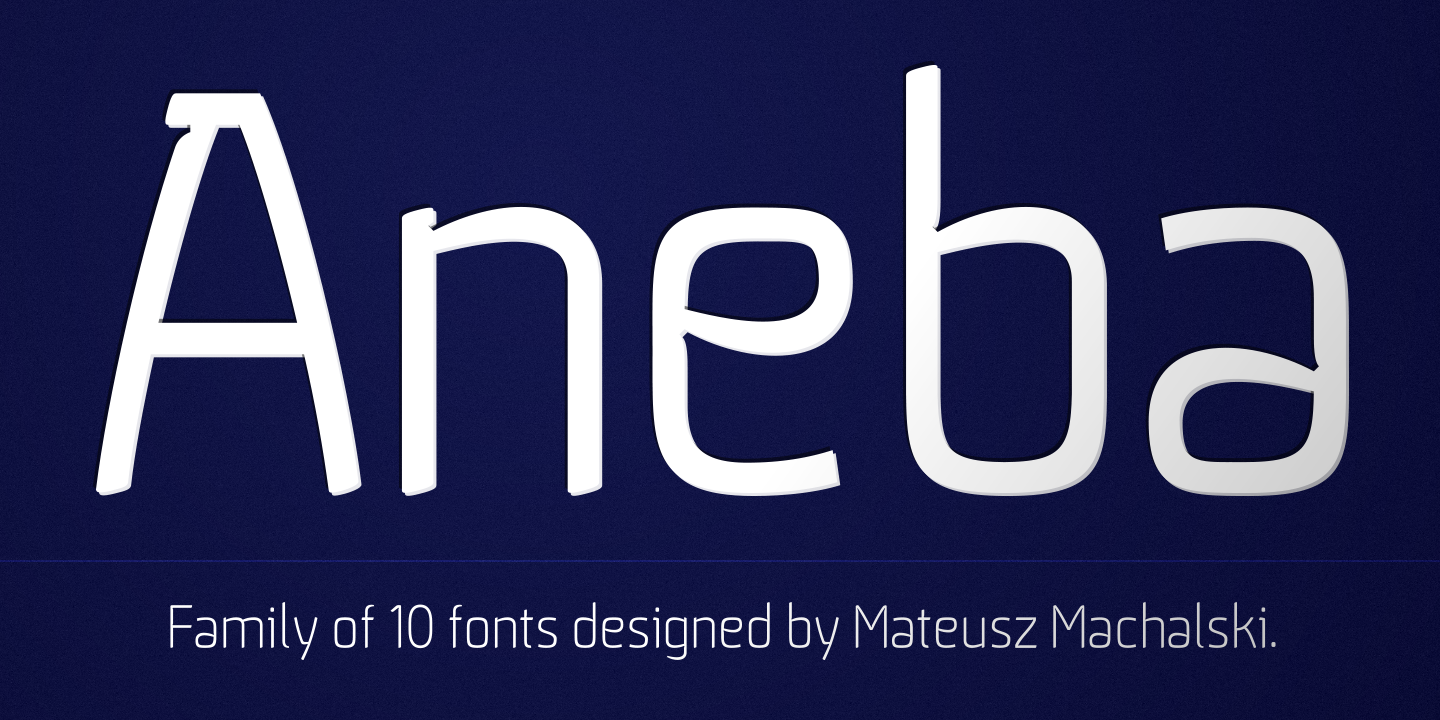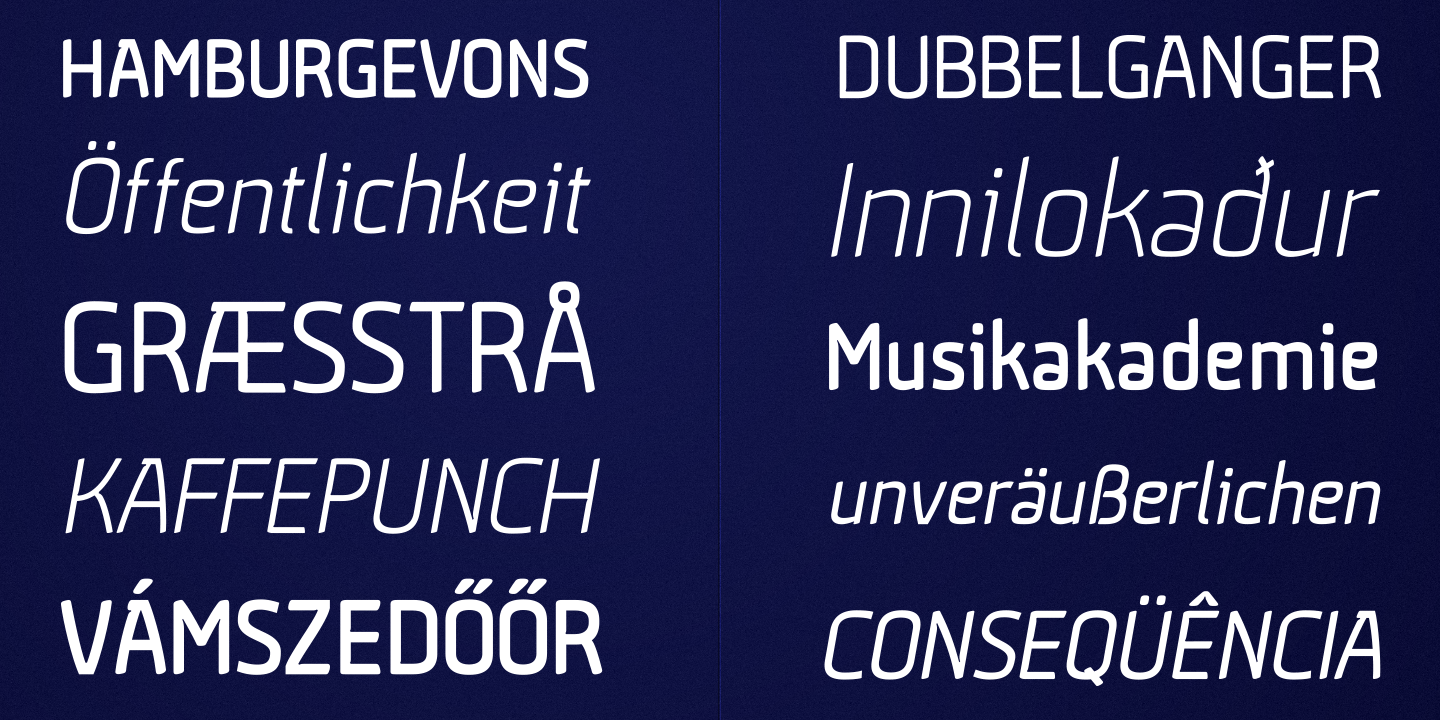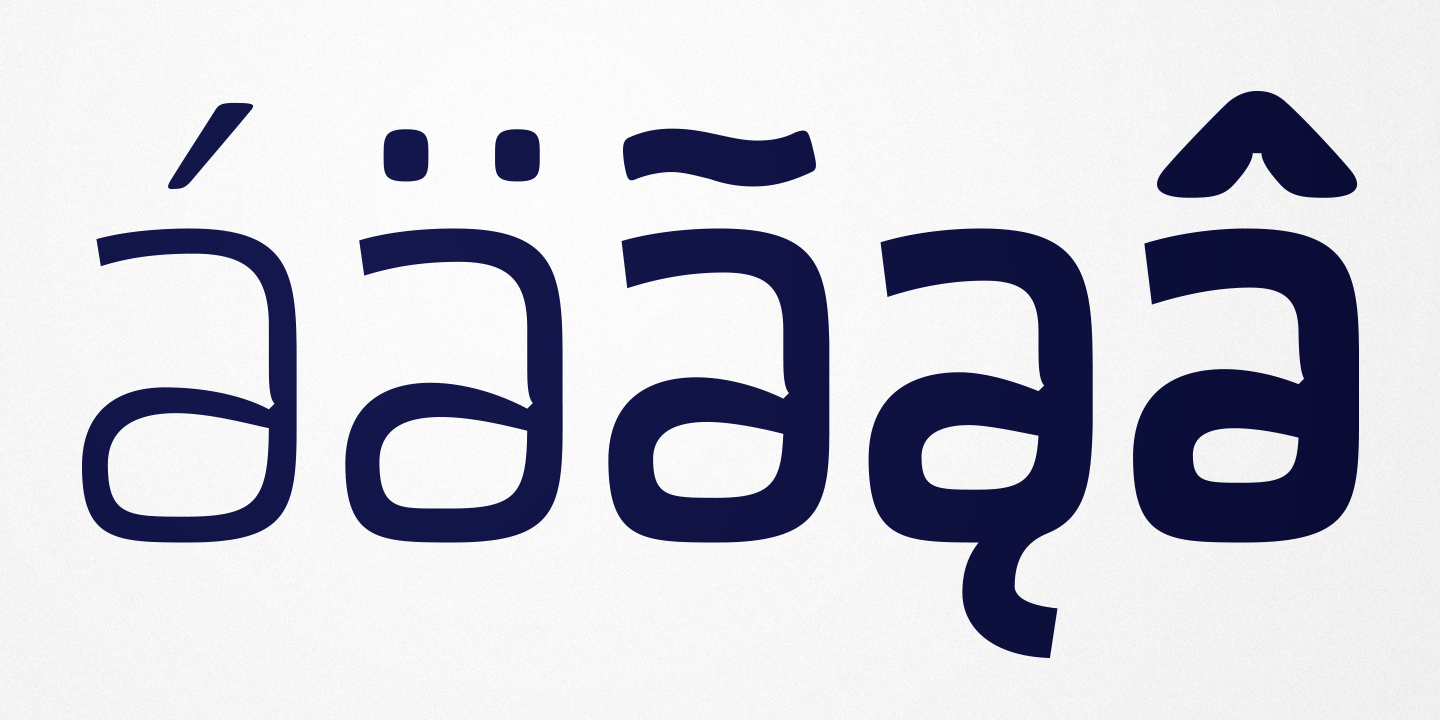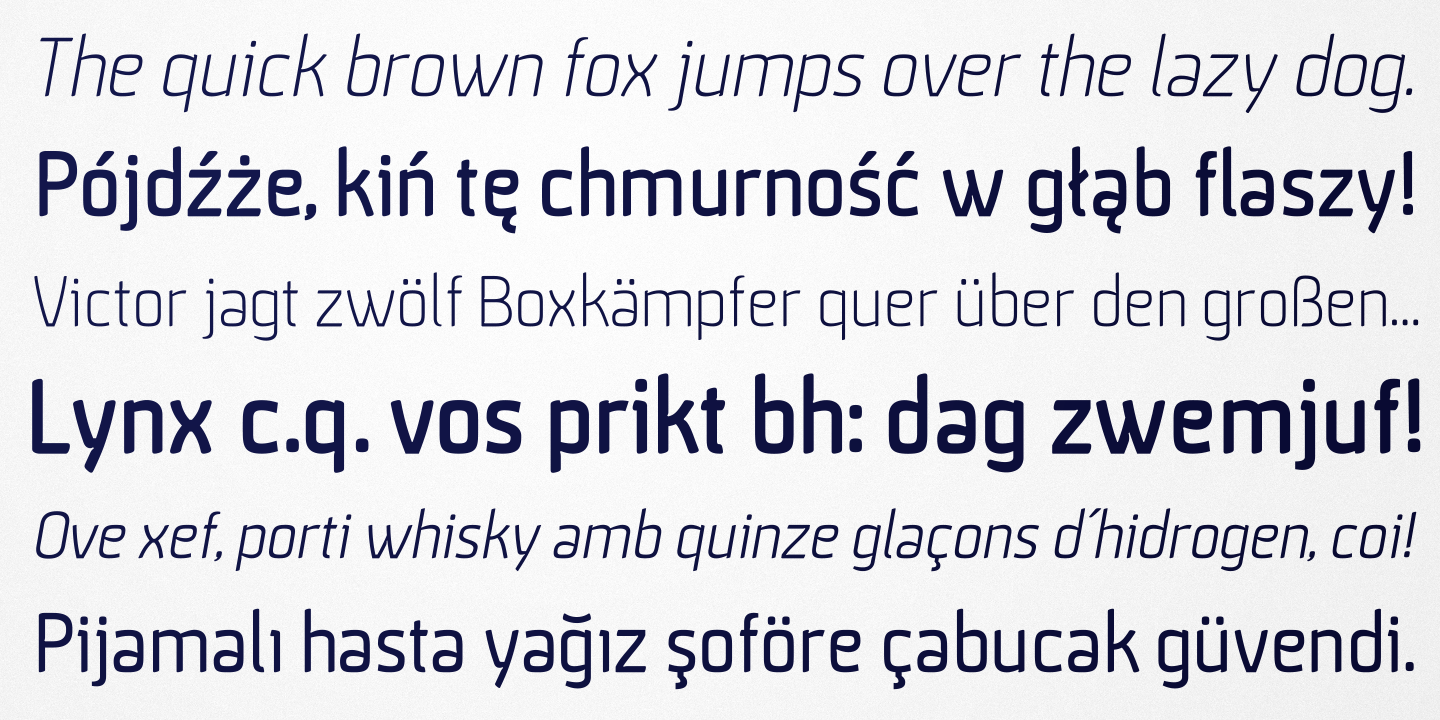
Aneba
Aneba Font Family
Aneba is a geometric sans serif typeface family with a clean feel. The low contrast and high x height is perfect for logos and Headlines. Each Aneba glyph has an interesting detail in form of ink traps. Aneba family contains 5 weights in two different styles – bold & oblique.